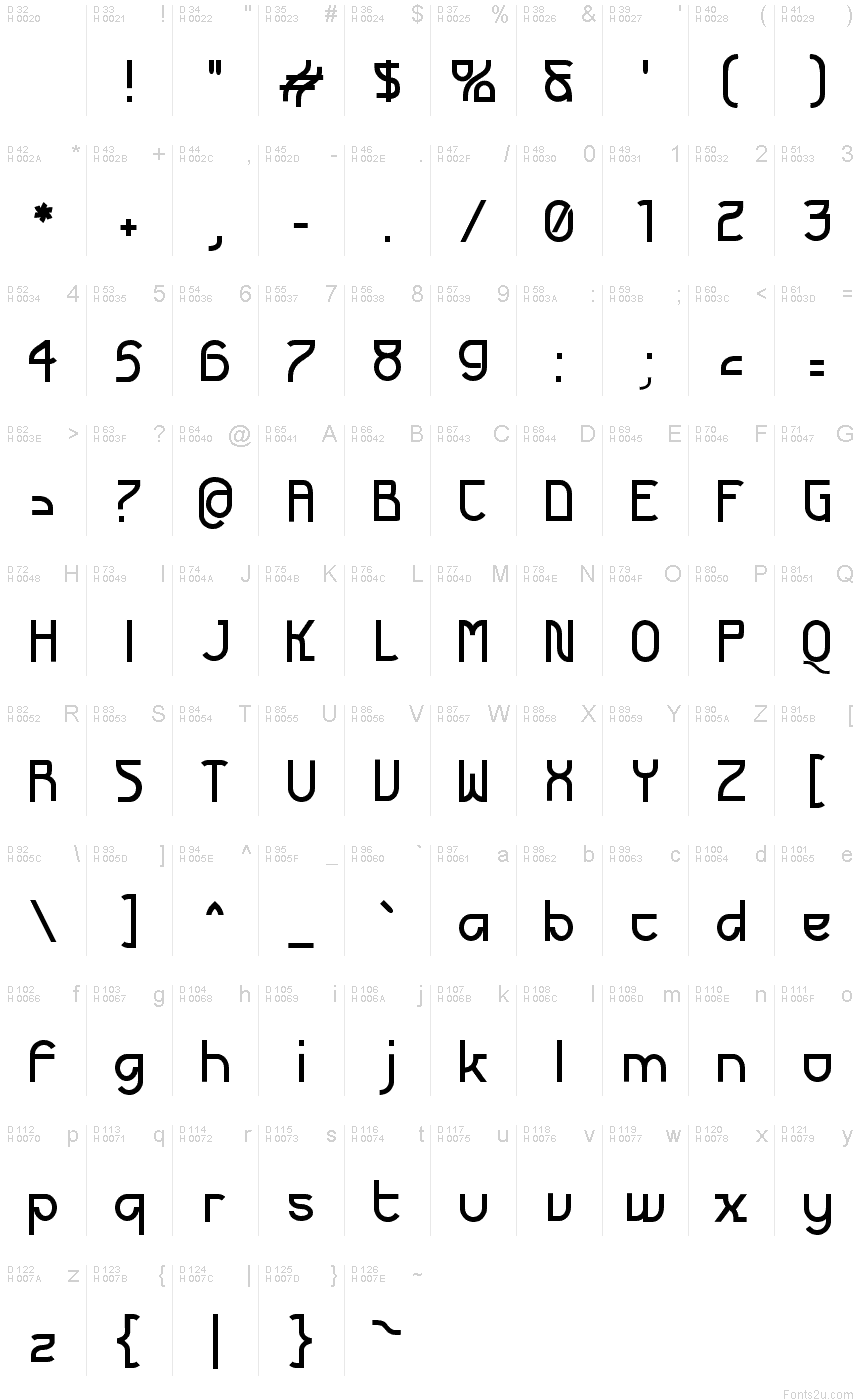
Futurex Bold
Futurex Bold font by Graham Meade is a free futuristic display typeface. Its chunky, monoline strokes and squared-off joins give every word a sleek, modular feel, like signage pulled from a clean sci-fi interface. The rounded curves stay soft and friendly while the tight spacing keeps lines feeling compact and powerful, so headlines look strong without feeling heavy or aggressive.
Using Futurex Bold, you get a bold, tech-forward voice that works beautifully for app splash screens, esports logos, sci-fi book covers, event posters, UI panels, and bold branding experiments. The consistent stroke weight means it holds up well at large sizes, especially on backlit screens and neon-like color palettes. Pair this free font with a simple geometric sans for body text, and let Futurex handle the loud, attention-grabbing moments.